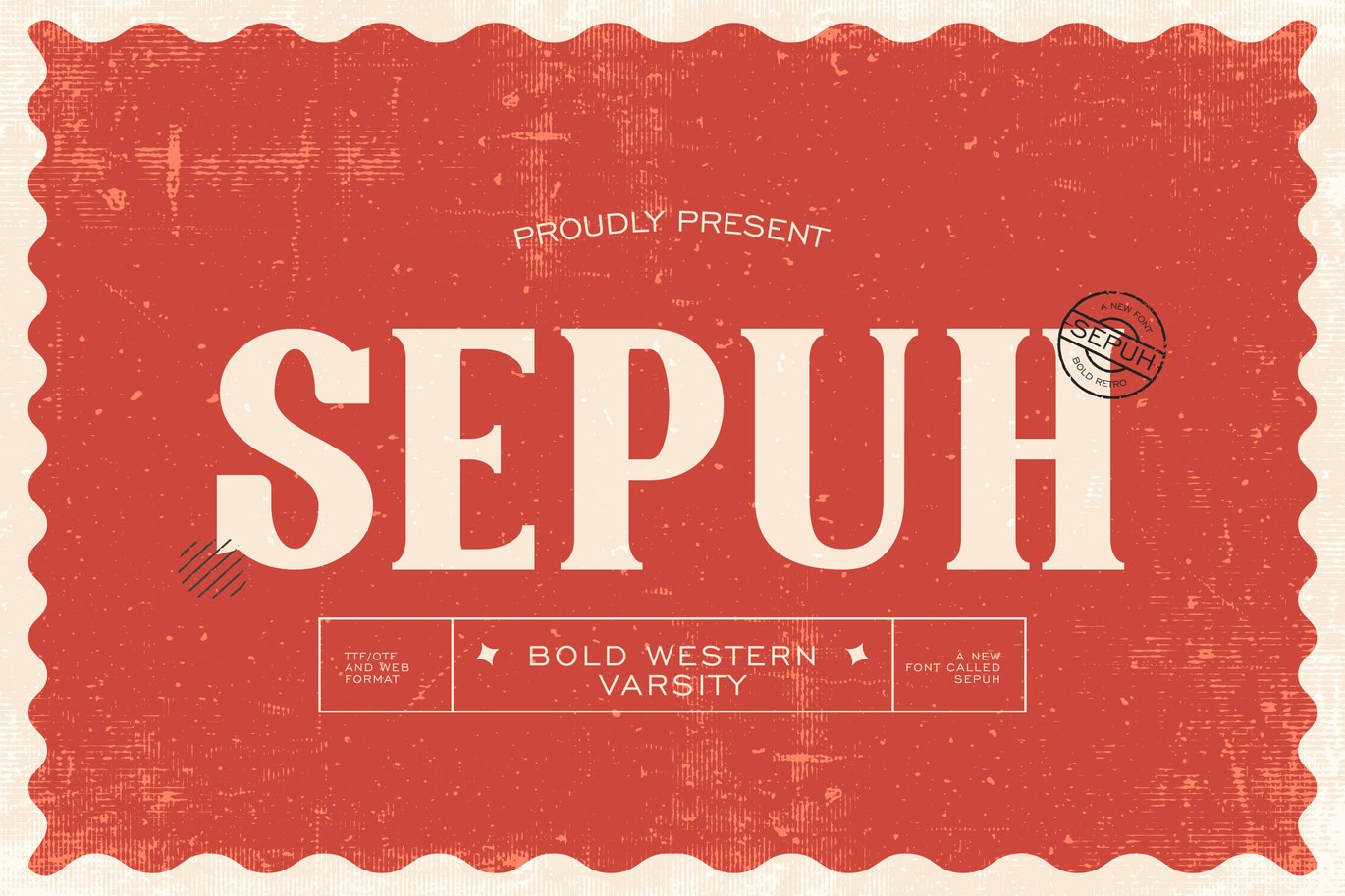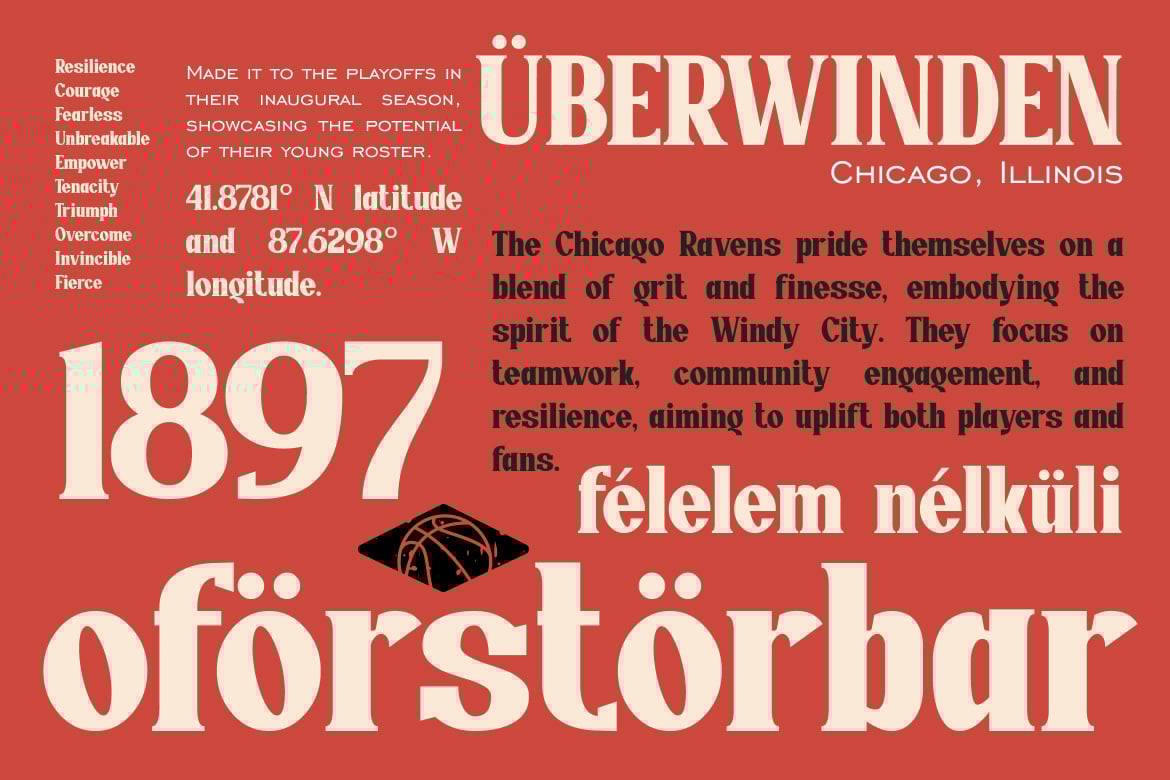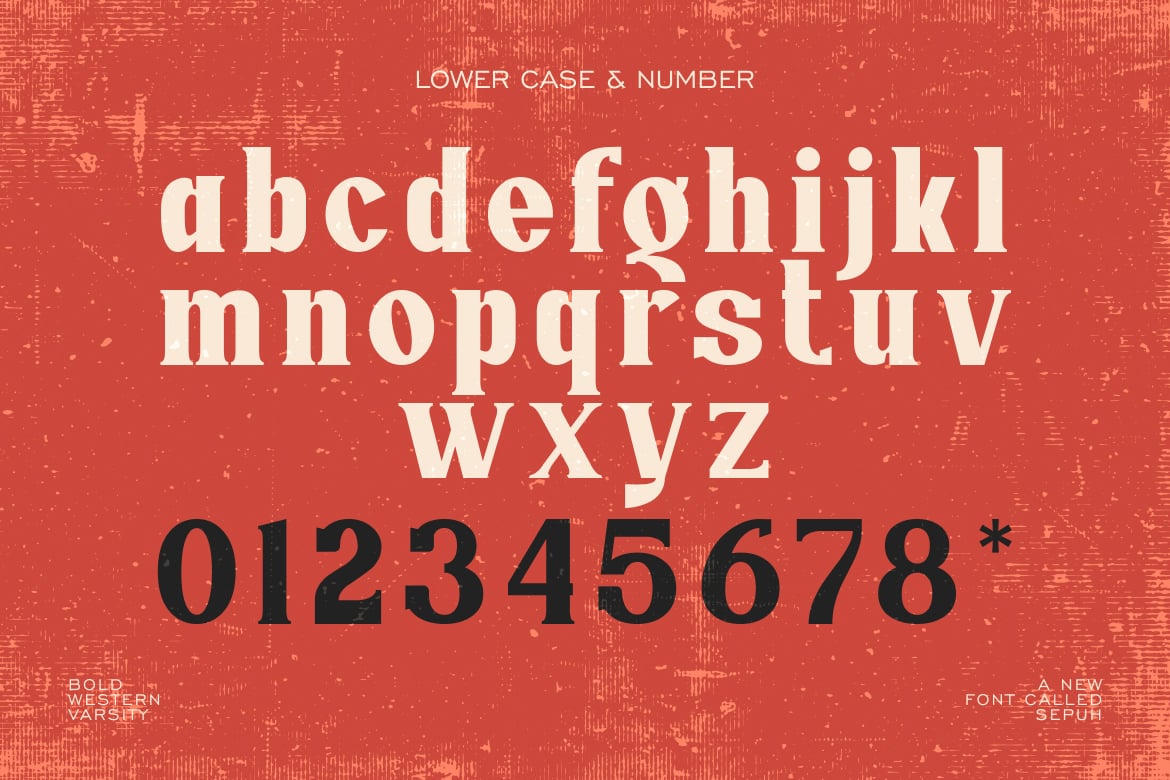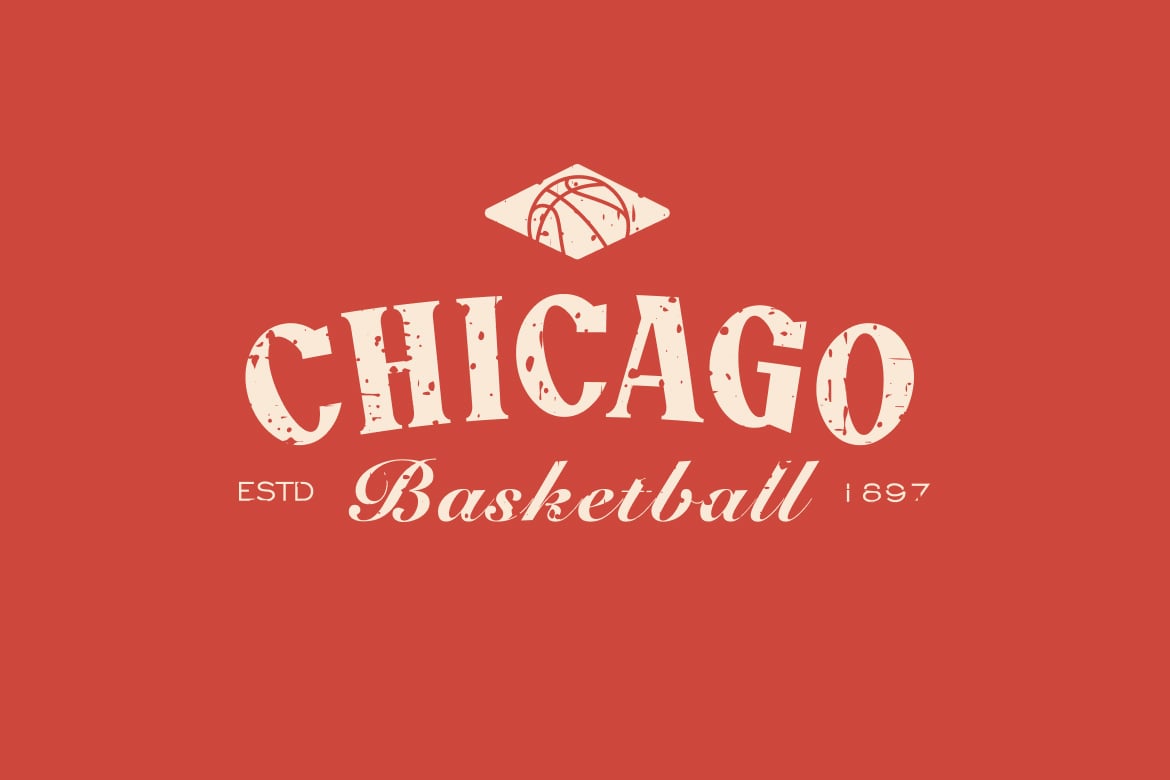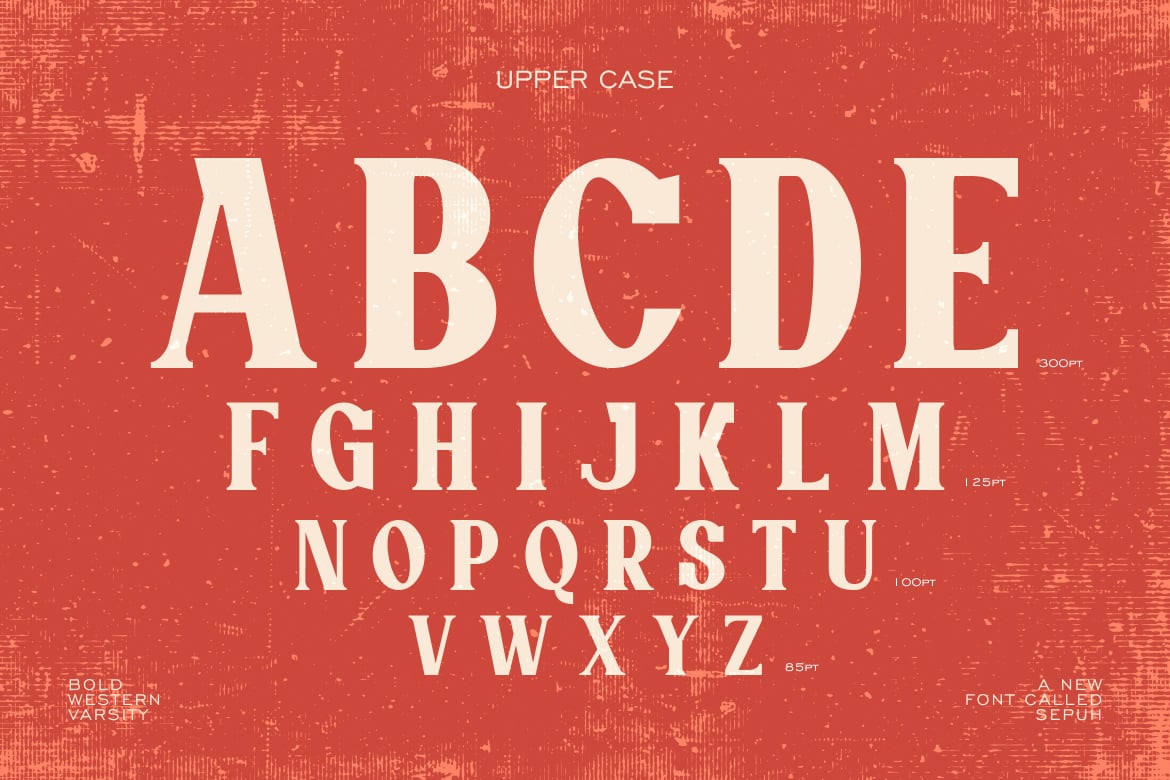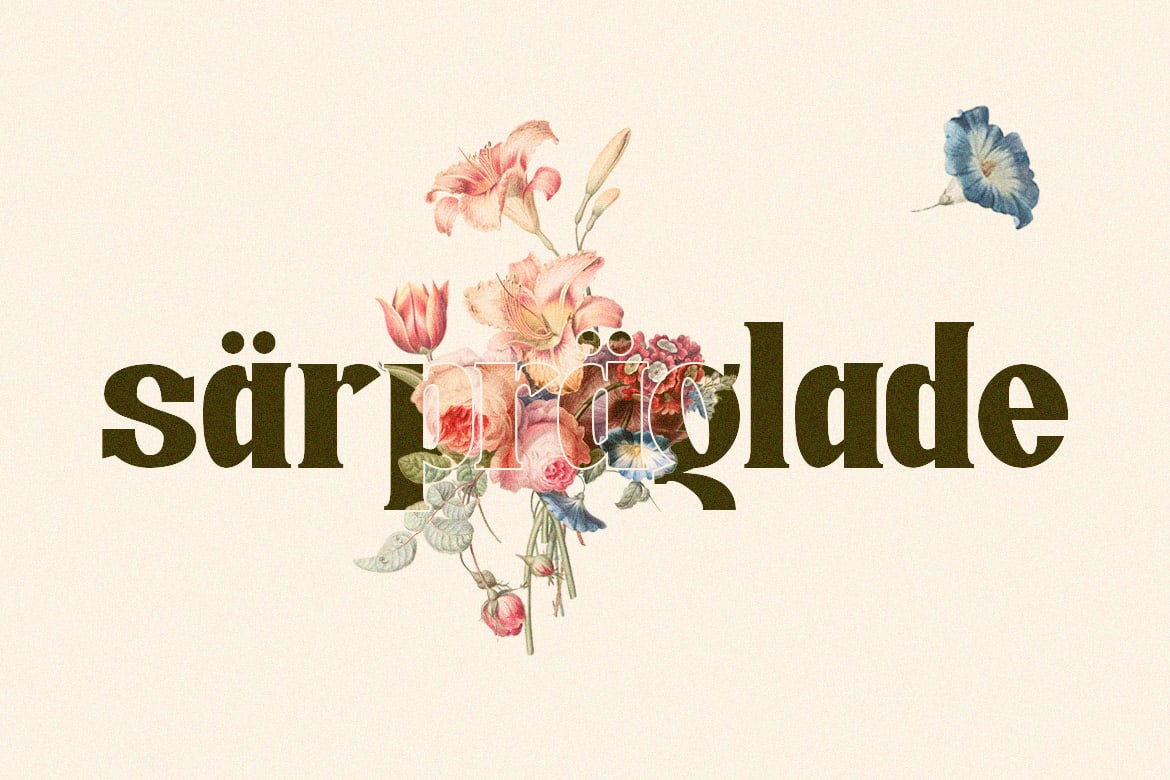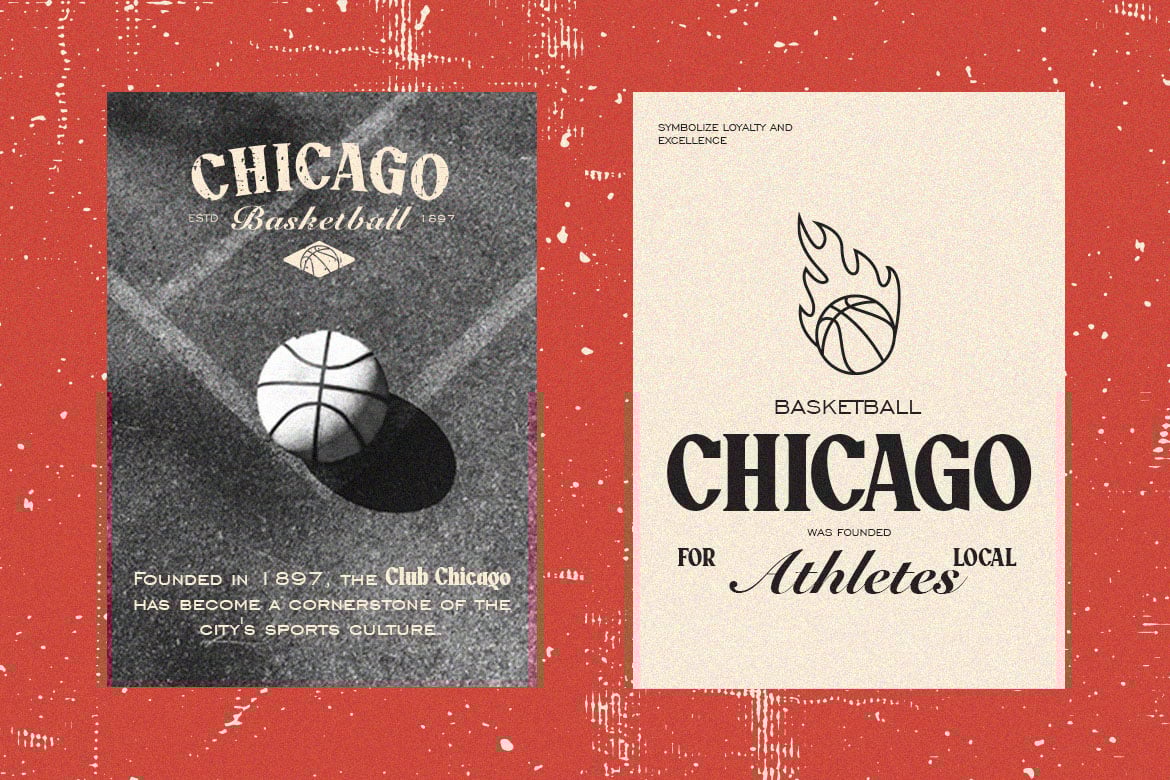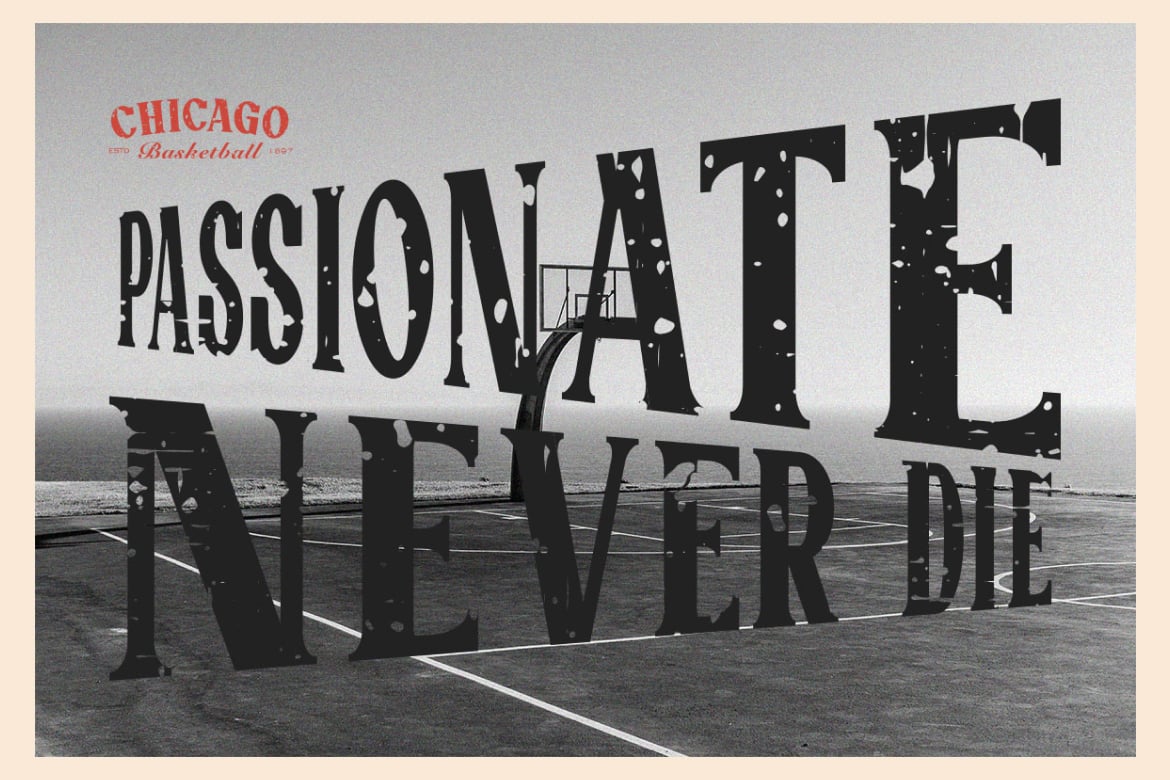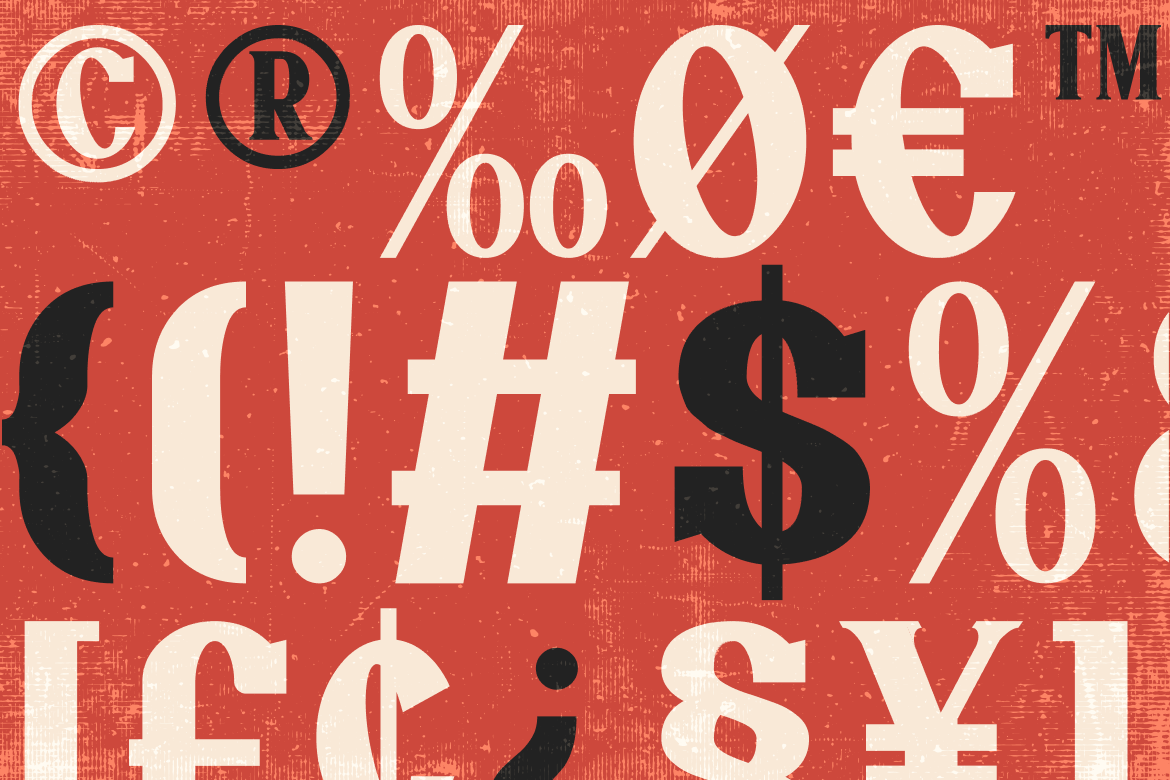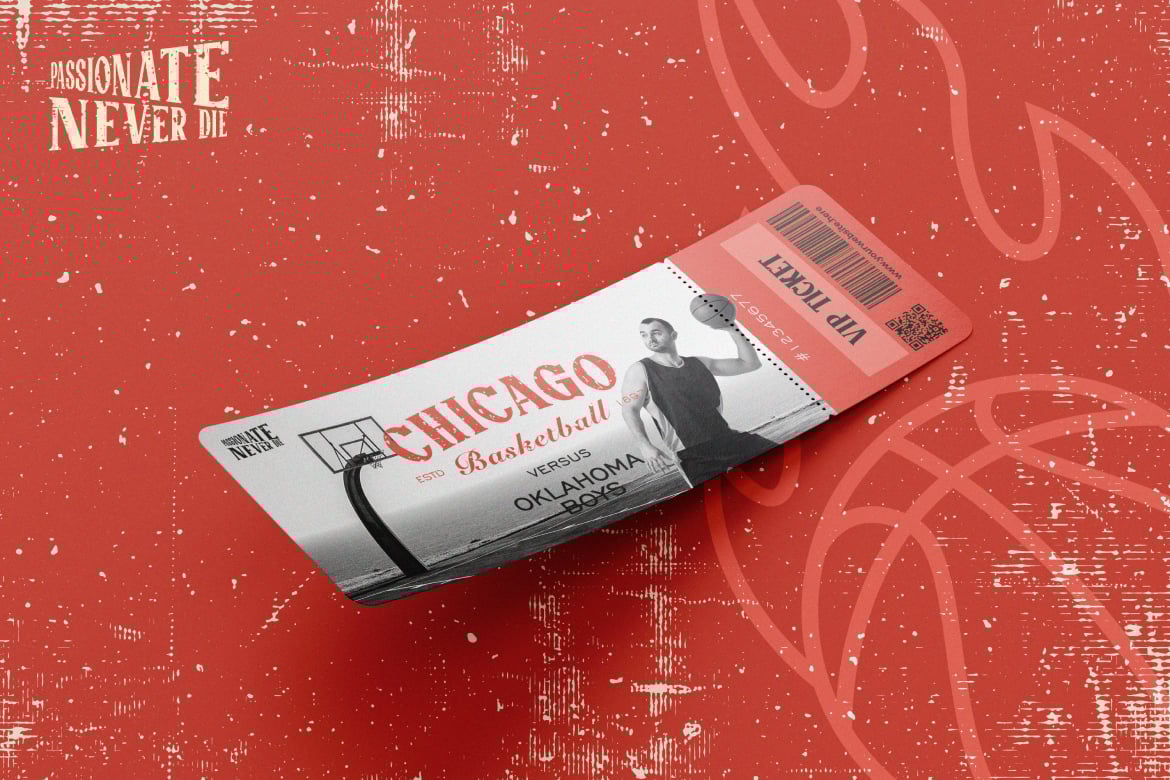
Sepuh – Bold Western Varsity Font
Introducing Sepuh – Bold Western Varsity Font – a Modern Professional Typeface excellent used for Heading or Title, Logotype, Merchandise, Clothing, Magazine, Corporate, Sports, Event, Ticket and many more.